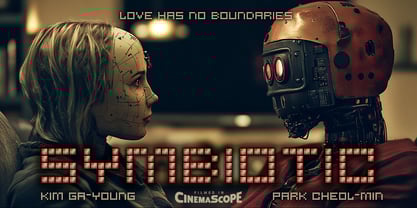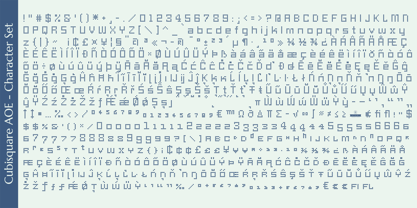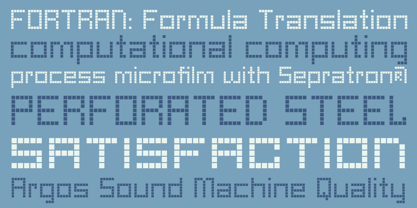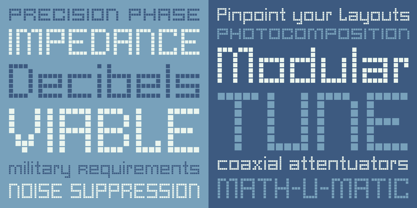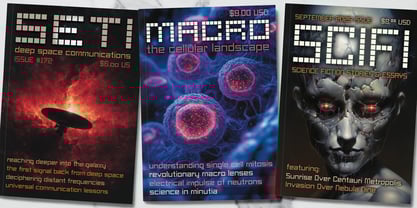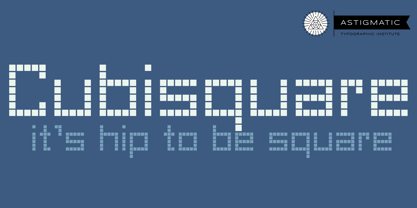
Cubisquare AOE
by Astigmatic
The Cubisquare AOE Font Family was designed by Brian J. Bonislawsky and published by Astigmatic. Cubisquare AOE contains 1 styles. More about this family
Cubisquare AOE is a revival of early modular display lettering originally produced as LetterGraphics film type under the name Times Square, designed by Alfred Guerra. The Astigmatic One Eye Typographic Institute preserves this specimen as a representative artifact from the transitional moment when typography began migrating from mechanical production to digital display systems. Each glyph is constructed from a precise grid of square modules, creating a disciplined bitmap structure reminiscent of teleprinters, laboratory terminals, and early cathode display screens. The design reveals the underlying grid with deliberate clarity, celebrating the geometry that defined early computational typography. This modular construction reflects the technological realities of the era: memory limitations, pixel economies, and the engineering logic that shaped the earliest digital alphabets. Every character shares a consistent unit system, producing a rhythm of repeated squares that feels both mathematical and architectural. Today Cubisquare AOE reads as both technological artifact and design statement. Its crisp grid construction evokes control panels, retro computing, digital readouts, and experimental film lettering from the dawn of electronic typography. The font performs especially well in retro technology themes, digital nostalgia projects, sci-fi interfaces, data visualization, poster design, gaming graphics, and layouts referencing early computing culture.